Receipt is inspired by the dot-matrixcharacters found on—you guessed it—the receipts you receive after a purchase. Receipt celebrates the beauty in the everyday, love notes included.
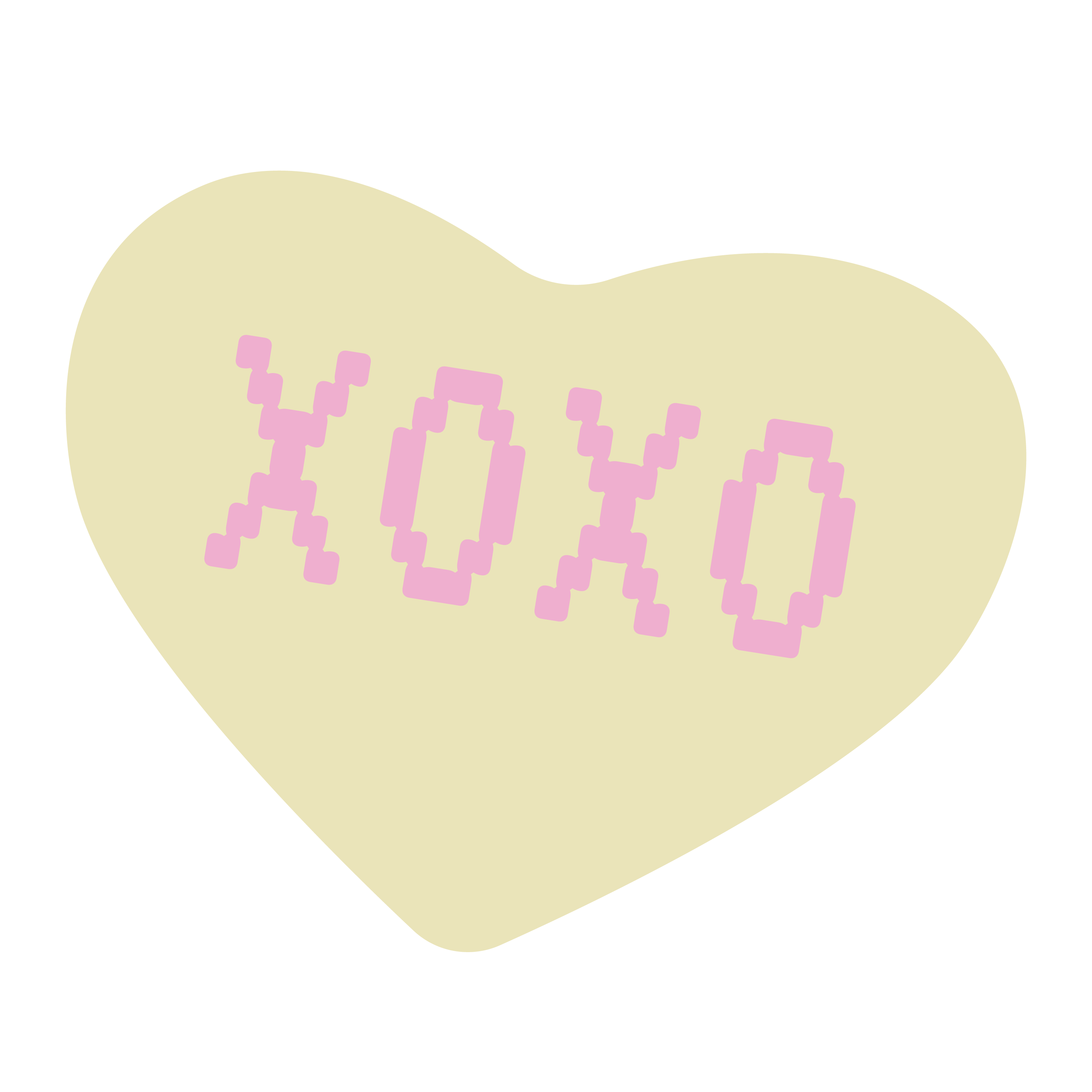
Built from a single isosceles right triangle, Kōsetsu is a study in restraint. Its grid-based, all-caps form reflects a quieter kind of romance...measured, thoughtful, and deeply intentional.
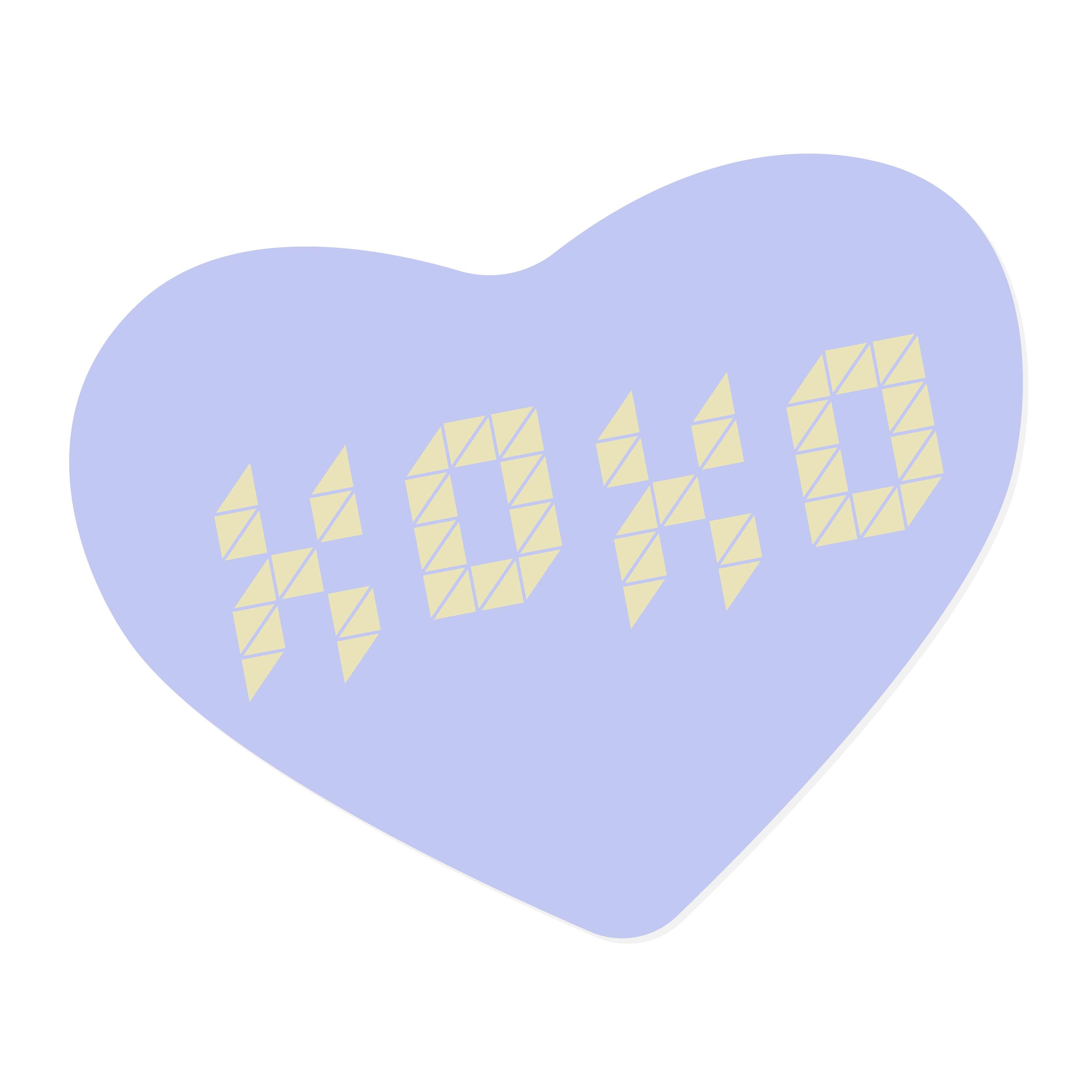
If Valentine’s Day isn’t all hearts and roses for you, Puffin Arcade might be the one. Built from the boldest version of Puffin Display Soft, this 12-style family loves color, movement, and a lot of fun. And it's easy to tone down by pairing it with Puffin or Puffin Display.
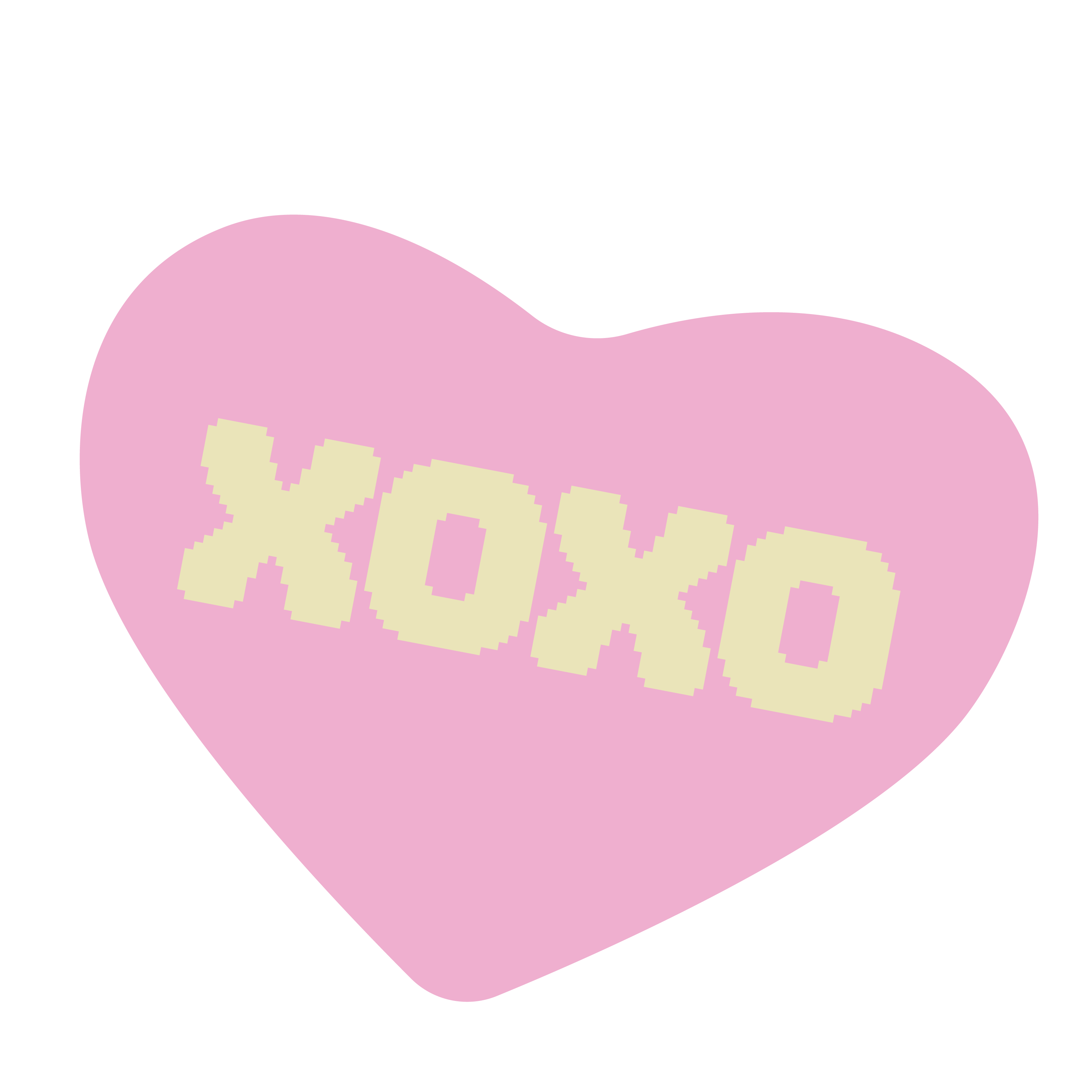
Monolina Brush captures the charm of classic Valentine’s typography, pairing expressive brush strokes with refined details for an effortlessly romantic feel.
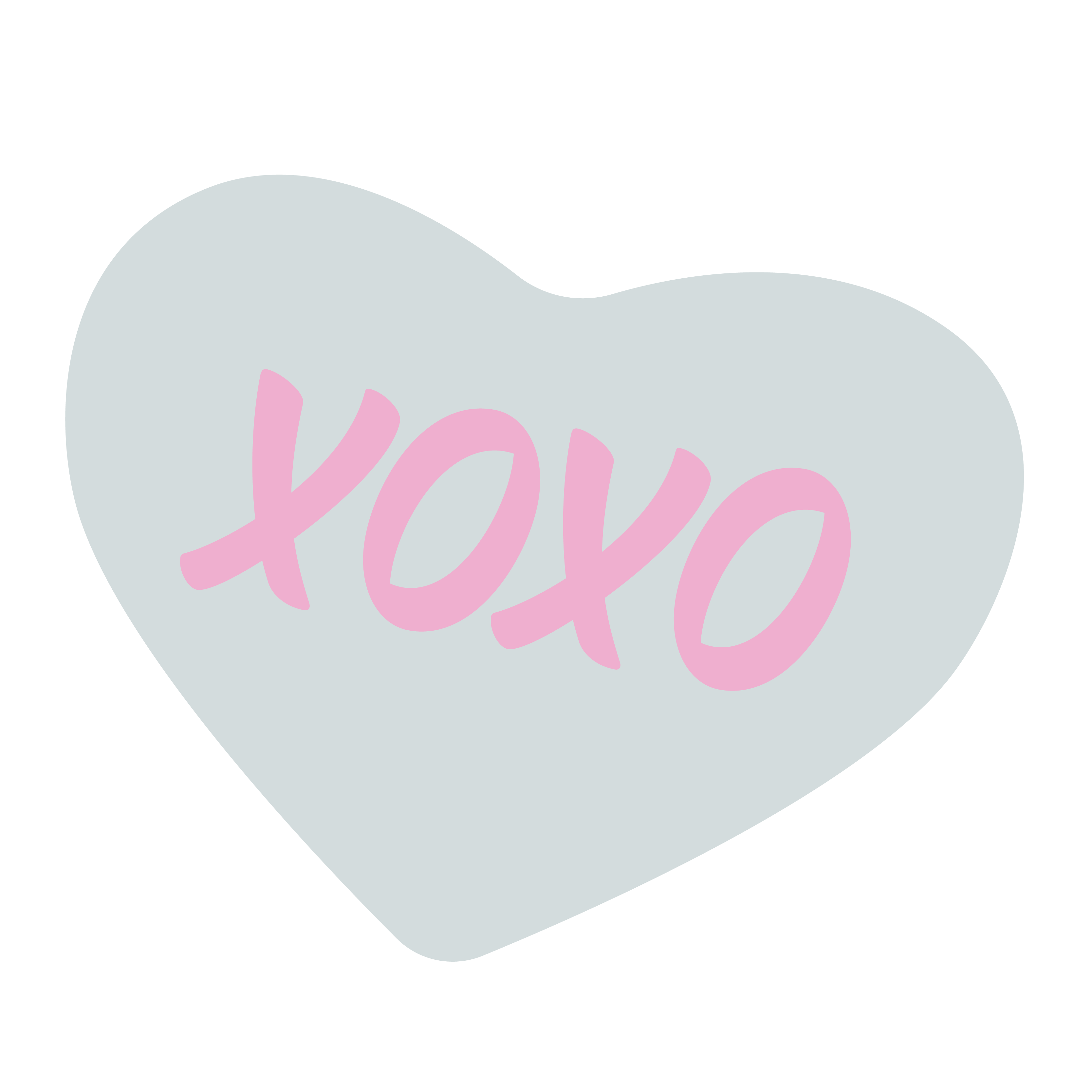
Riant Display is a playful geometric sanswith expressive details andversatile alternates for bold display typography. Riant Display adds personality to Valentine’s cards, notes, and any bold typographic moments.